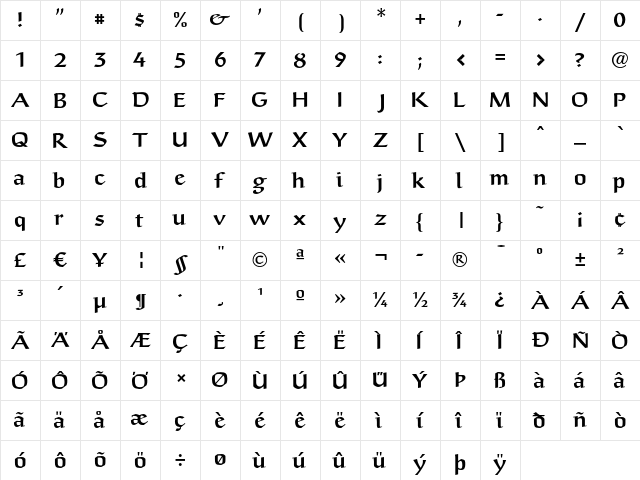
Anasdair LT Std Bold Regular
| Foundry | Linotype Library GmbH |
| Designer | Richard Yeend |
Design Context for Anasdair LT Std Bold Typeface
Anasdair LT Std Bold takes a measured approach to typography — its balanced proportions and neutral character make it a reliable workhorse for both digital and print work. The heavy weight commands attention and anchors typographic hierarchies.